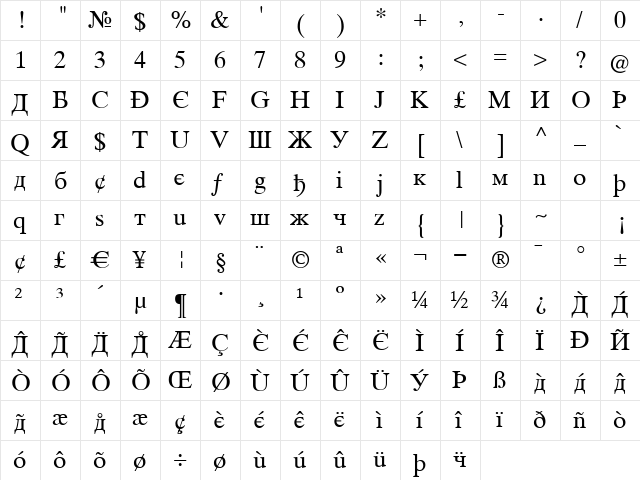
Intouris Tiqua
Design Context for Intouris Typeface
Intouris offers clean, dependable letterforms without strong stylistic allegiance, making it a practical choice for designers who need flexibility.
Pro Tip: Pair Intouris with a font of contrasting weight or personality to build a more expressive typographic hierarchy.